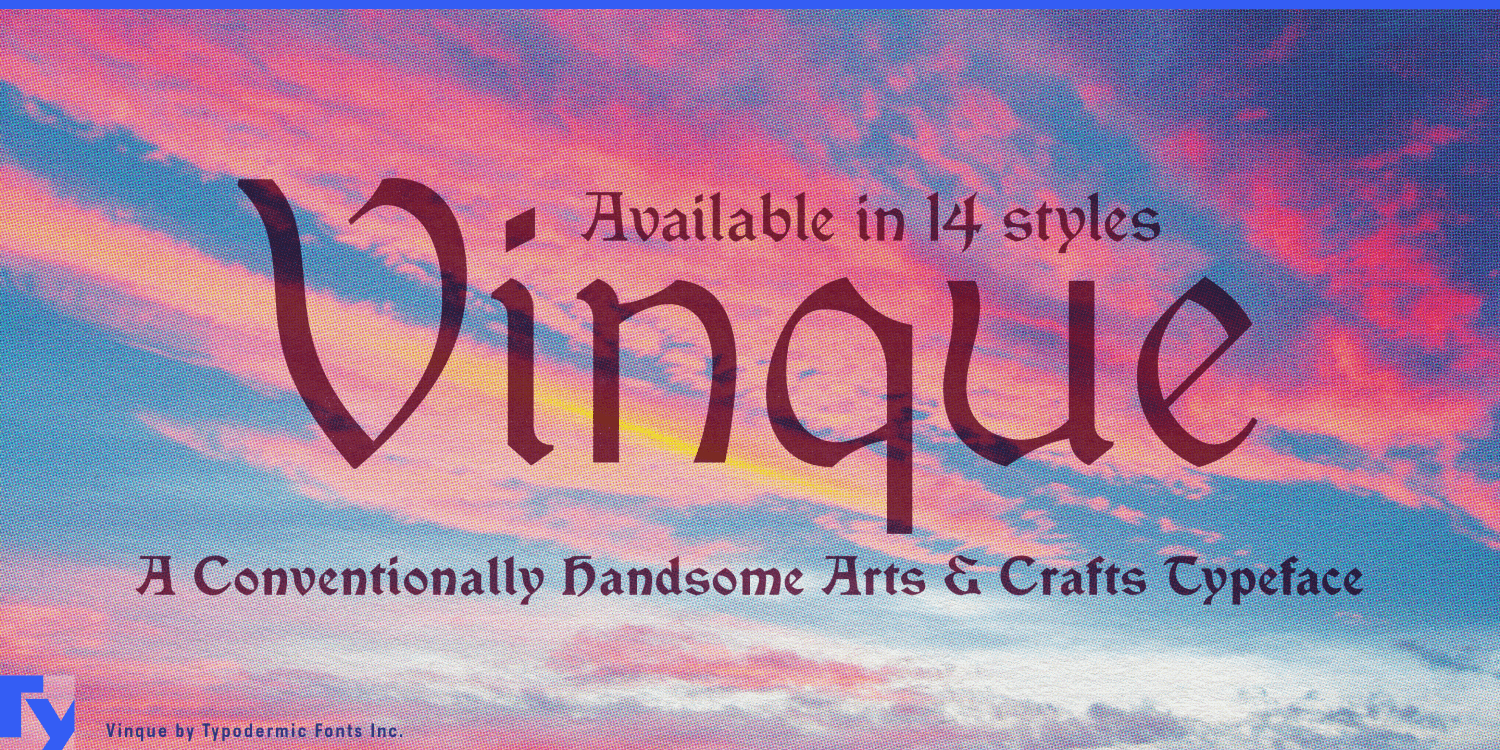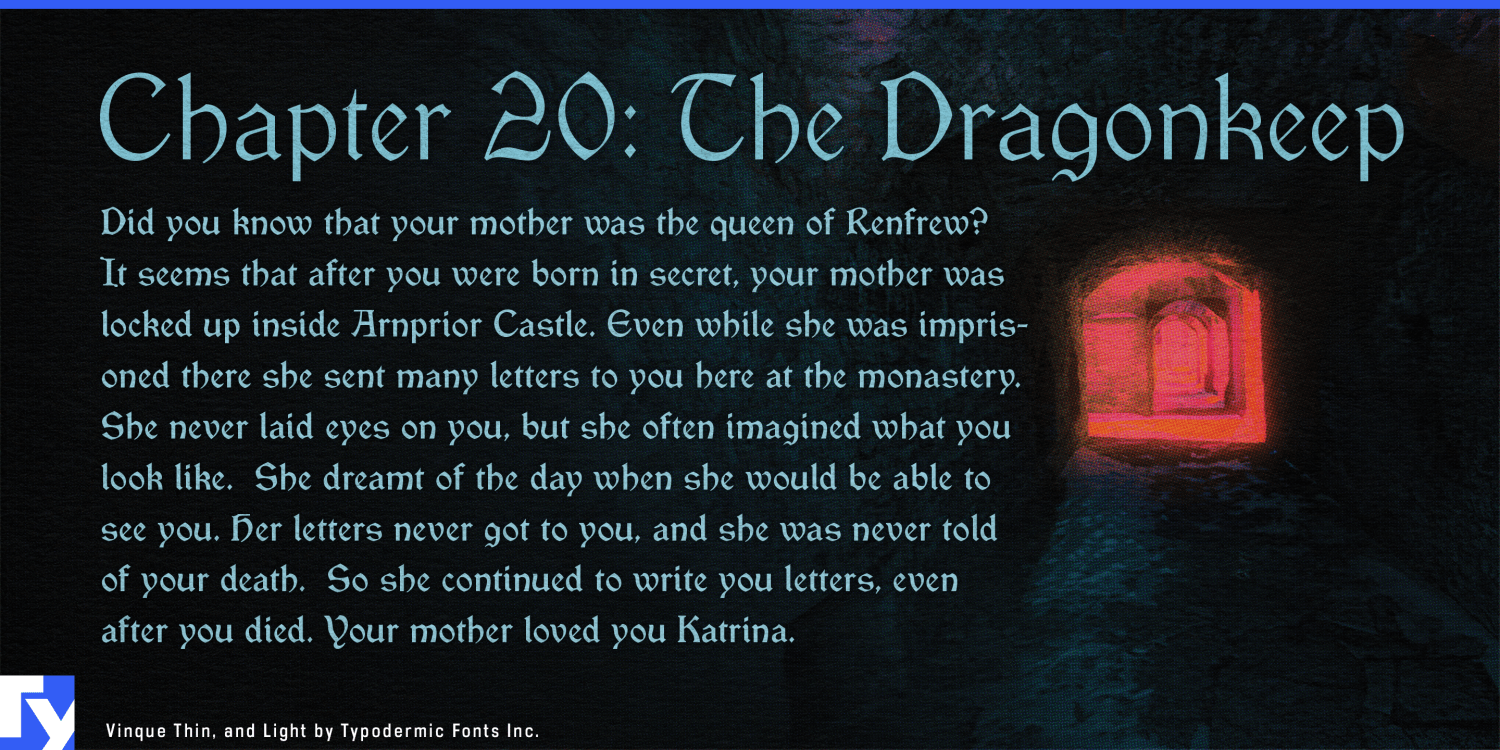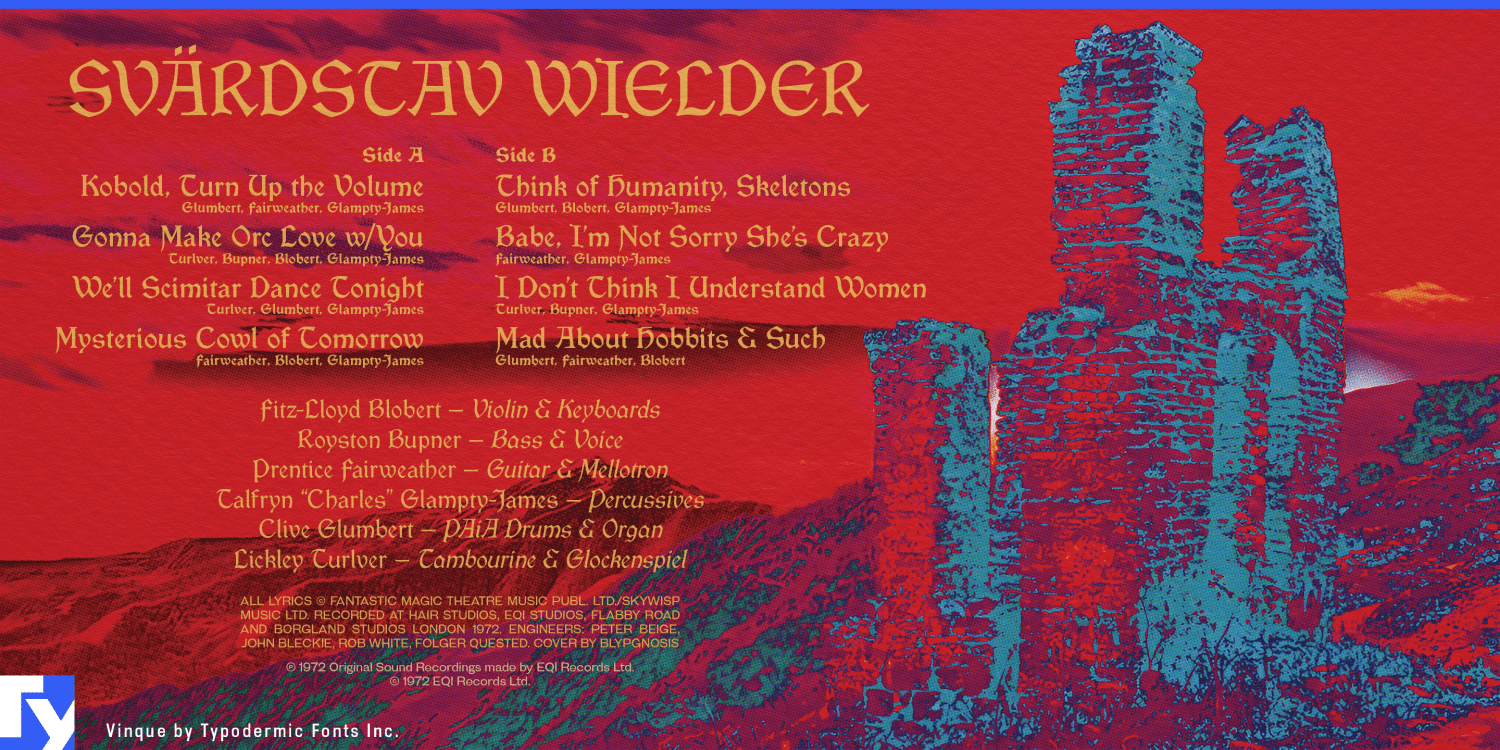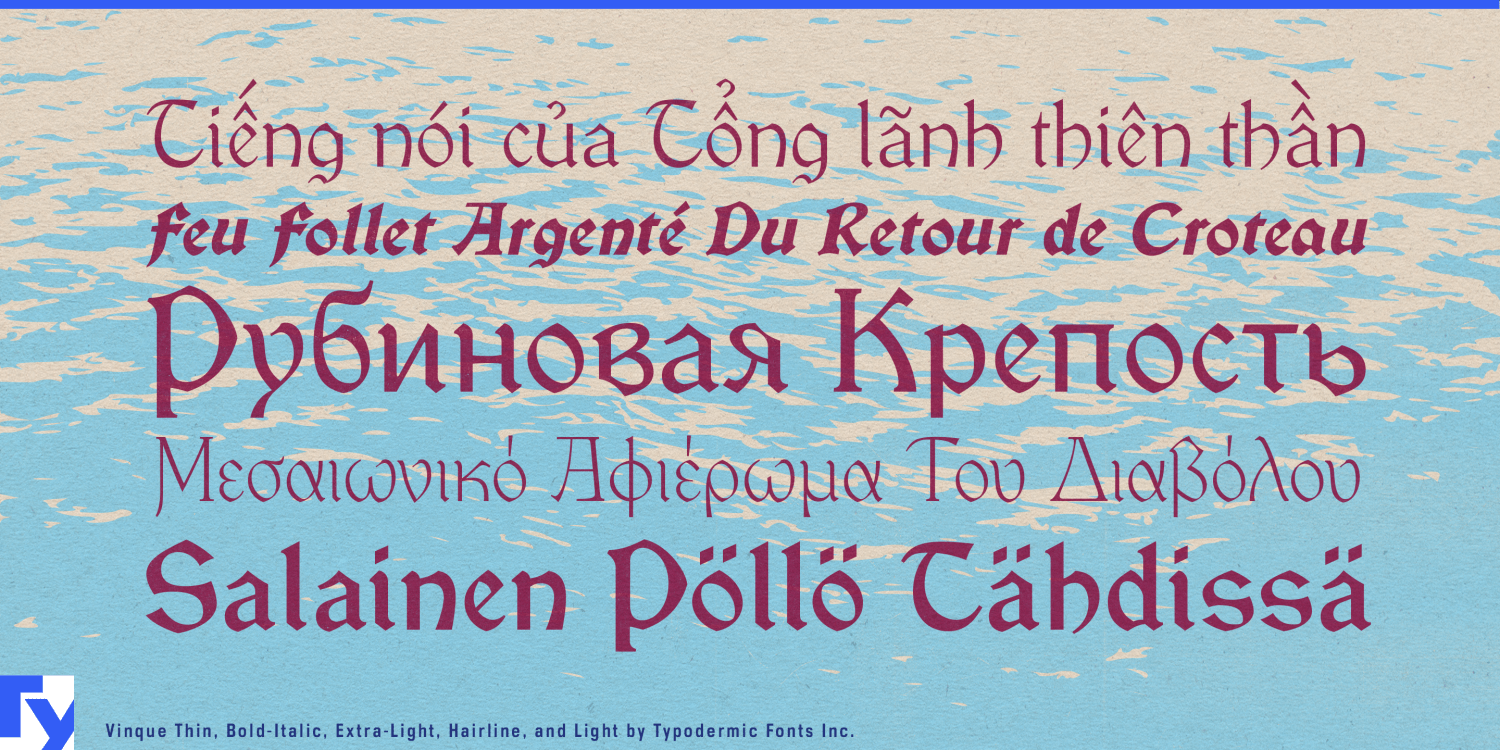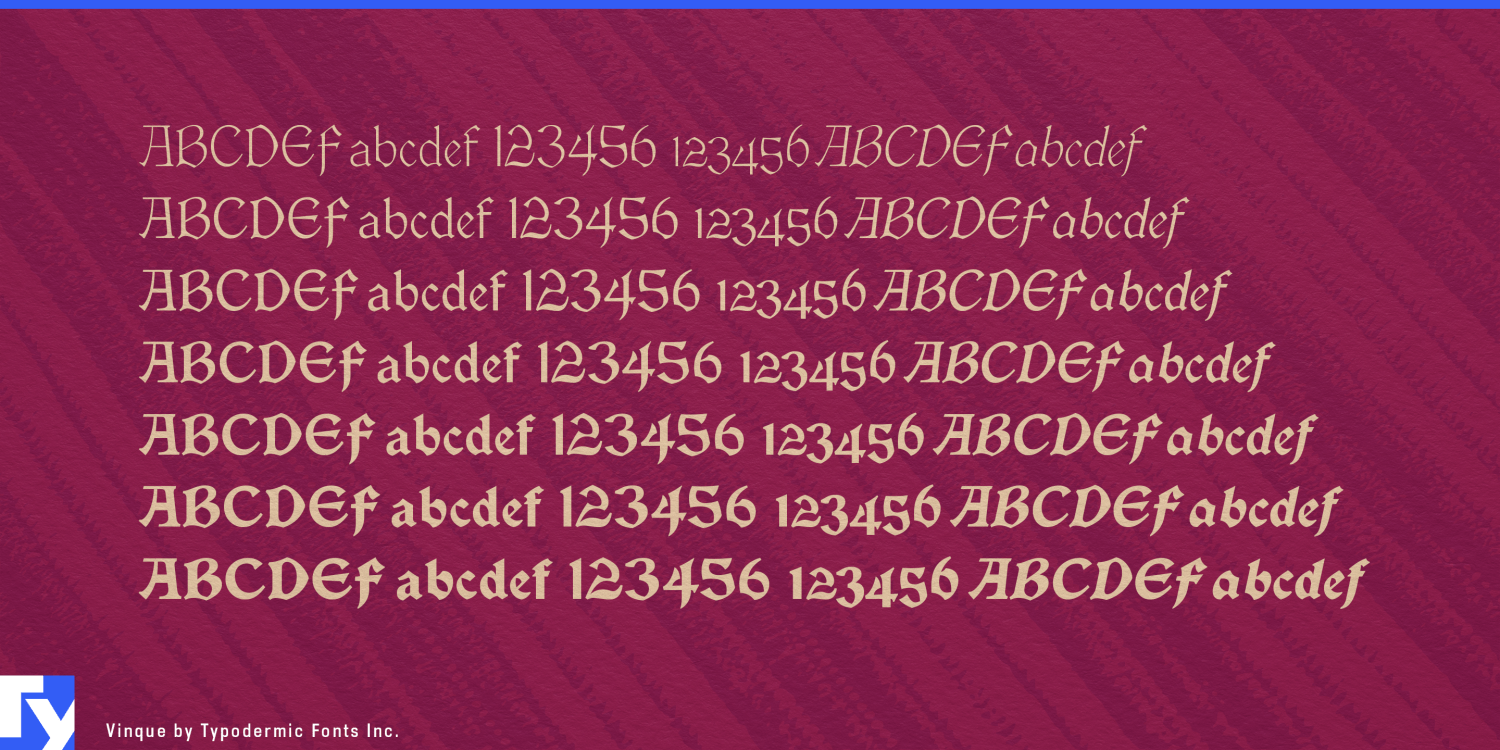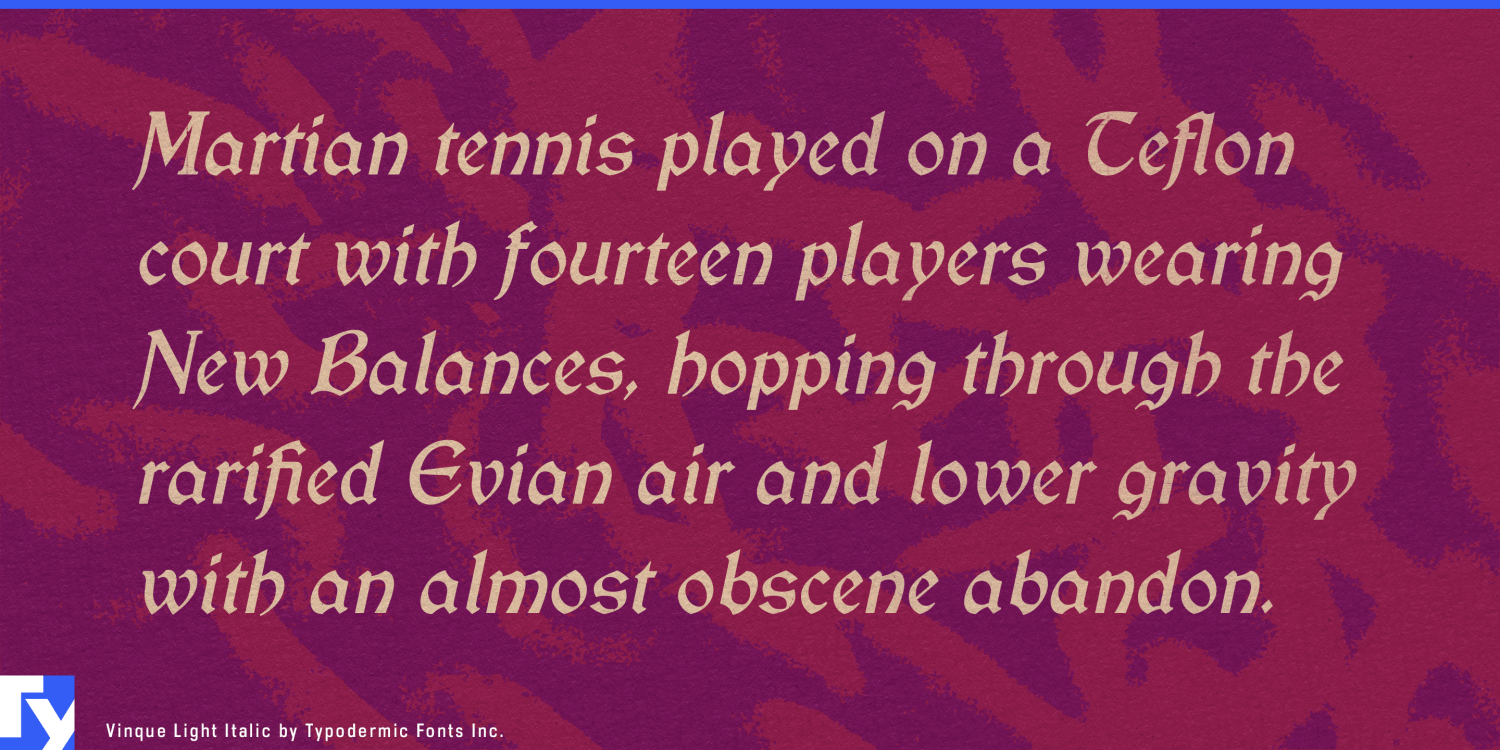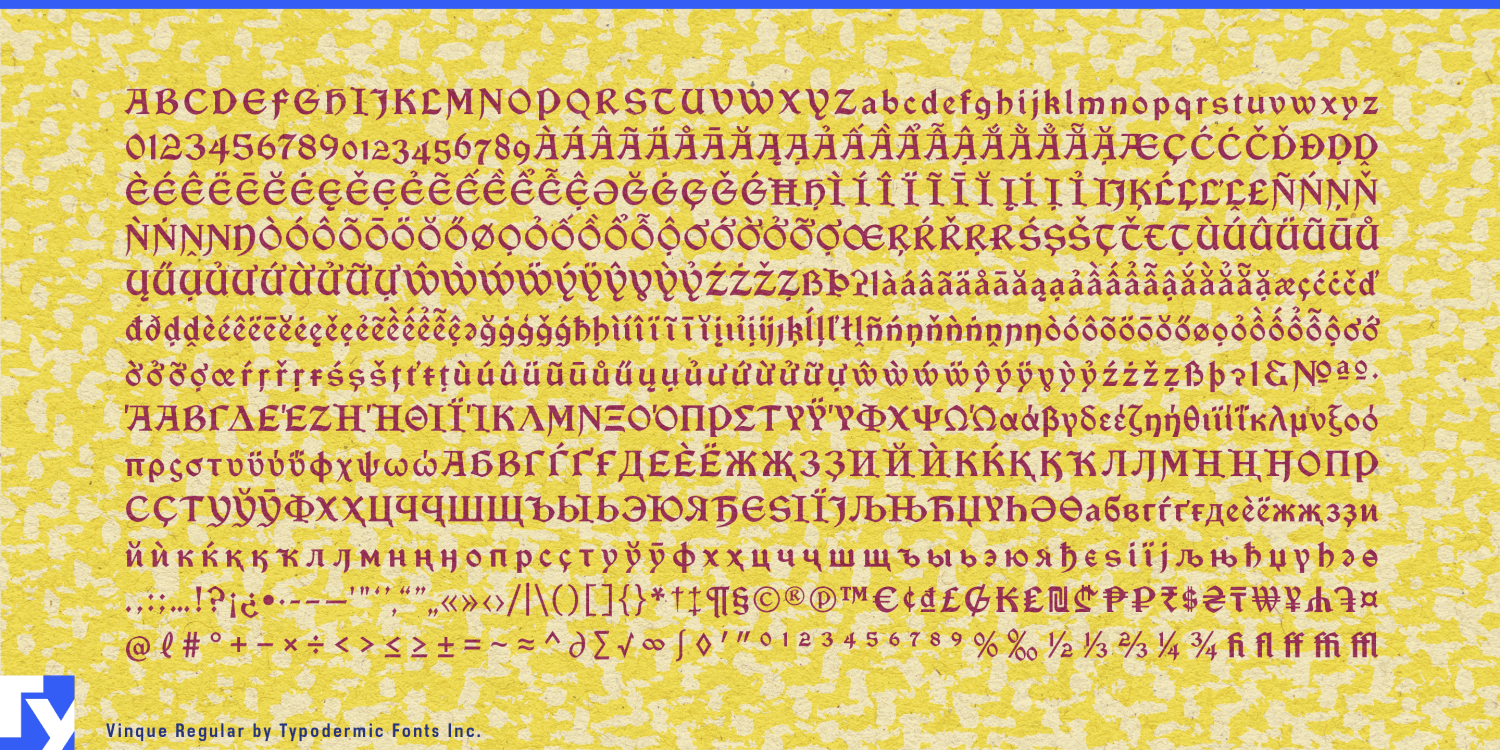
Vinque
Embark on a typographic quest with Vinque, a typeface that bridges the chasm between medieval mystique and modern clarity. Inspired by the artistic renaissance of the 19th-century Arts and Crafts movement, Vinque doesn’t just pay homage to medieval lettering—it reinvents it for the digital age.
Vinque’s essence lies in its ability to evoke the spirit of illuminated manuscripts without sacrificing legibility. Unlike its predecessor Troy, Vinque eschews the heavy vertical strokes of blackletter, opting instead for a more nuanced approach. The result? A typeface that whispers tales of knights and castles while effortlessly adapting to contemporary design landscapes. With seven weights and their italic counterparts, Vinque is a versatile squire ready to serve any design quest. From the delicate Ultra Light, perfect for evoking the gossamer threads of fairy tales, to the imposing Extra Bold, capable of announcing royal decrees, Vinque’s range is as vast as a medieval kingdom.
Vinque’s OpenType features are like a master scribe’s toolkit. F-ligatures intertwine with the grace of Celtic knots, while old-style numerals stand proudly like castle turrets. Fractions divide your designs with the precision of a cartographer mapping unexplored lands. These details don’t just adorn your text—they transport it to a realm where every character tells a story. But Vinque’s true magic lies in its universal appeal. Supporting an impressive array of writing systems—from Latin-based European languages to Vietnamese, Greek, and Cyrillic—it ensures your message resonates across modern-day kingdoms and beyond. It’s not just crossing borders; it’s uniting realms under a banner of typographic elegance.
Whether you’re crafting the user interface for a medieval-themed video game, designing a website for a Renaissance fair, or creating signage for a historical site, Vinque stands ready to lend its timeless charm. And for those seeking an extra layer of historical authenticity, look no further than Vinque Antique—a textured variation that adds the patina of age to your designs.